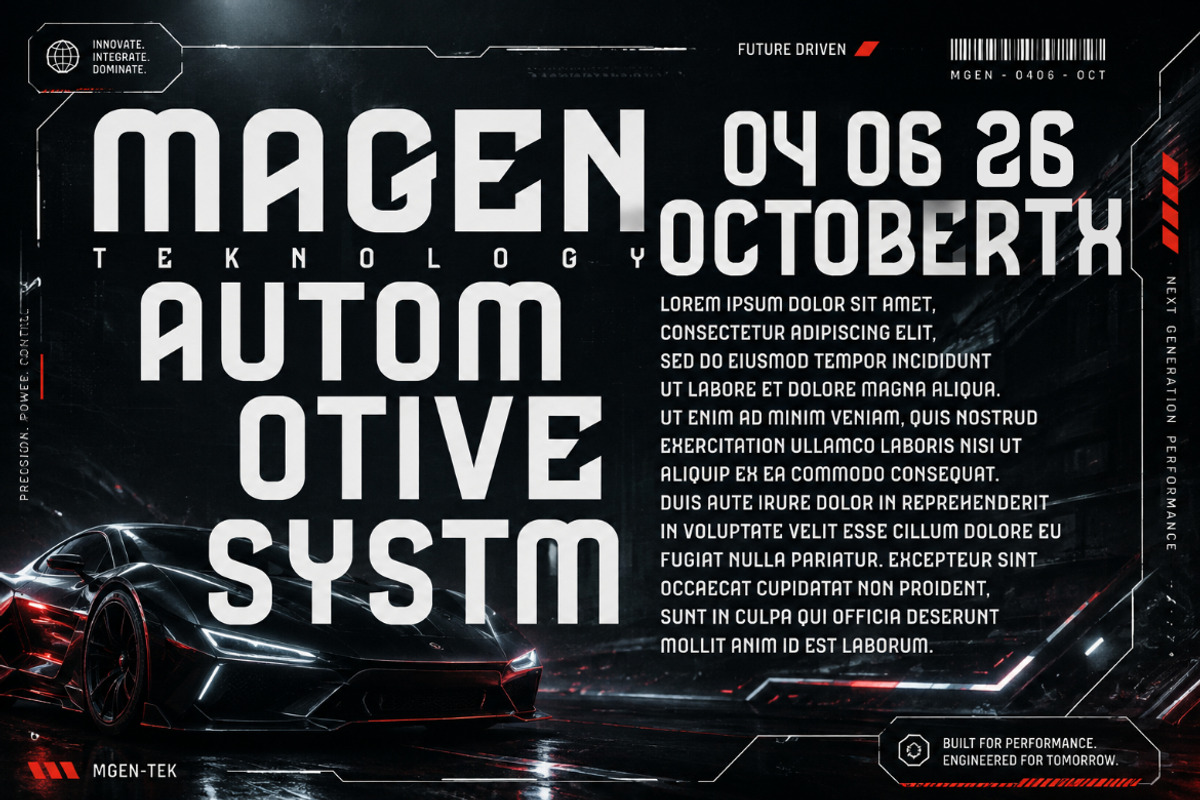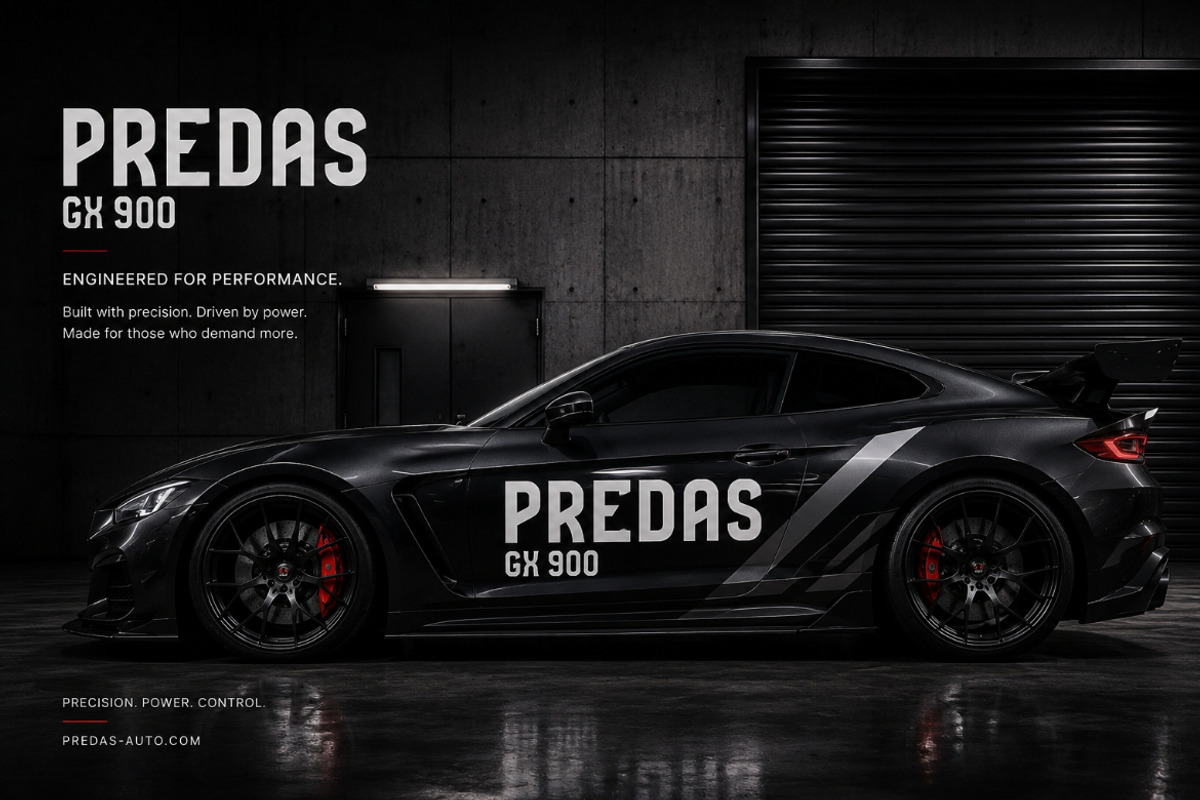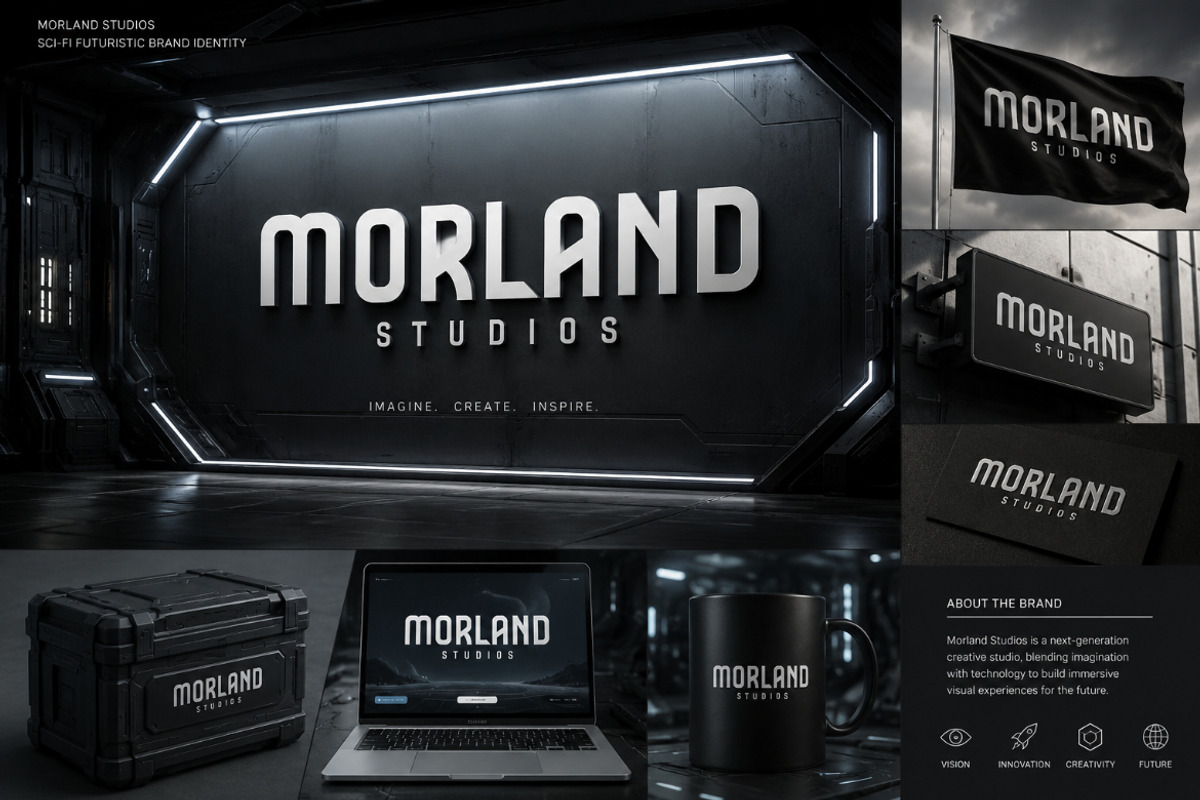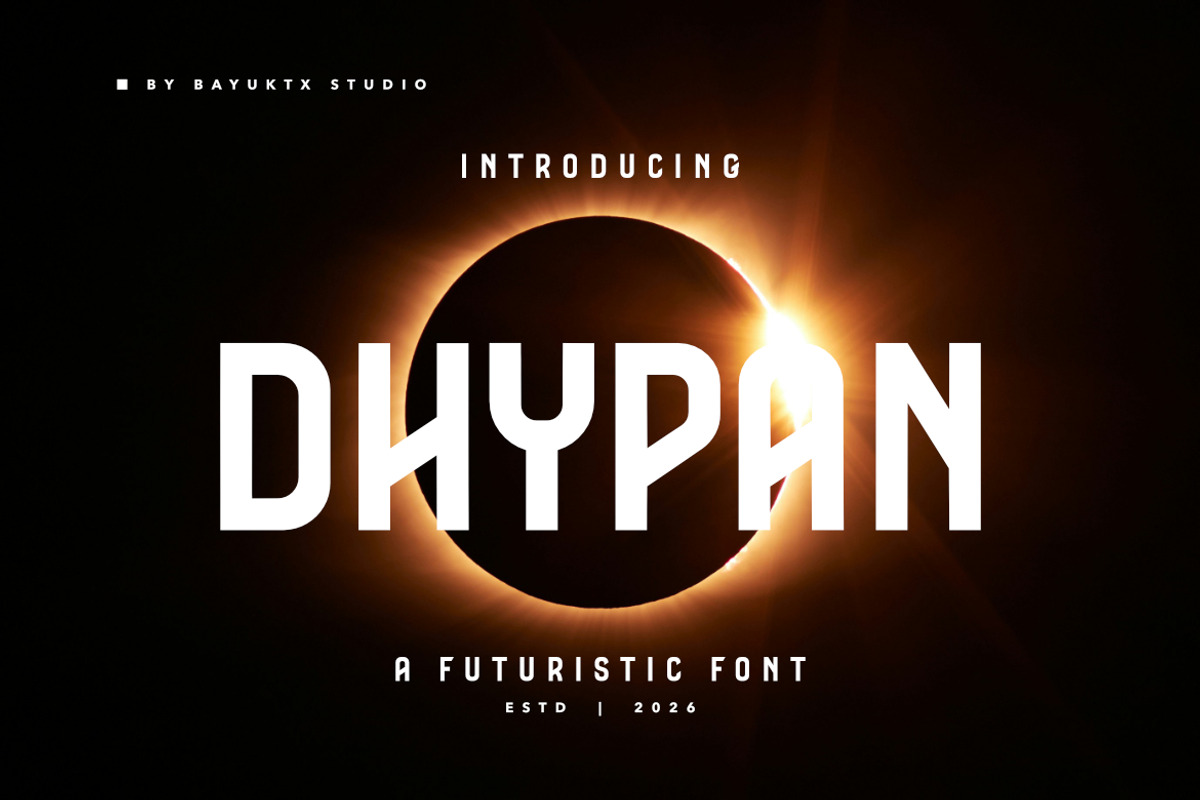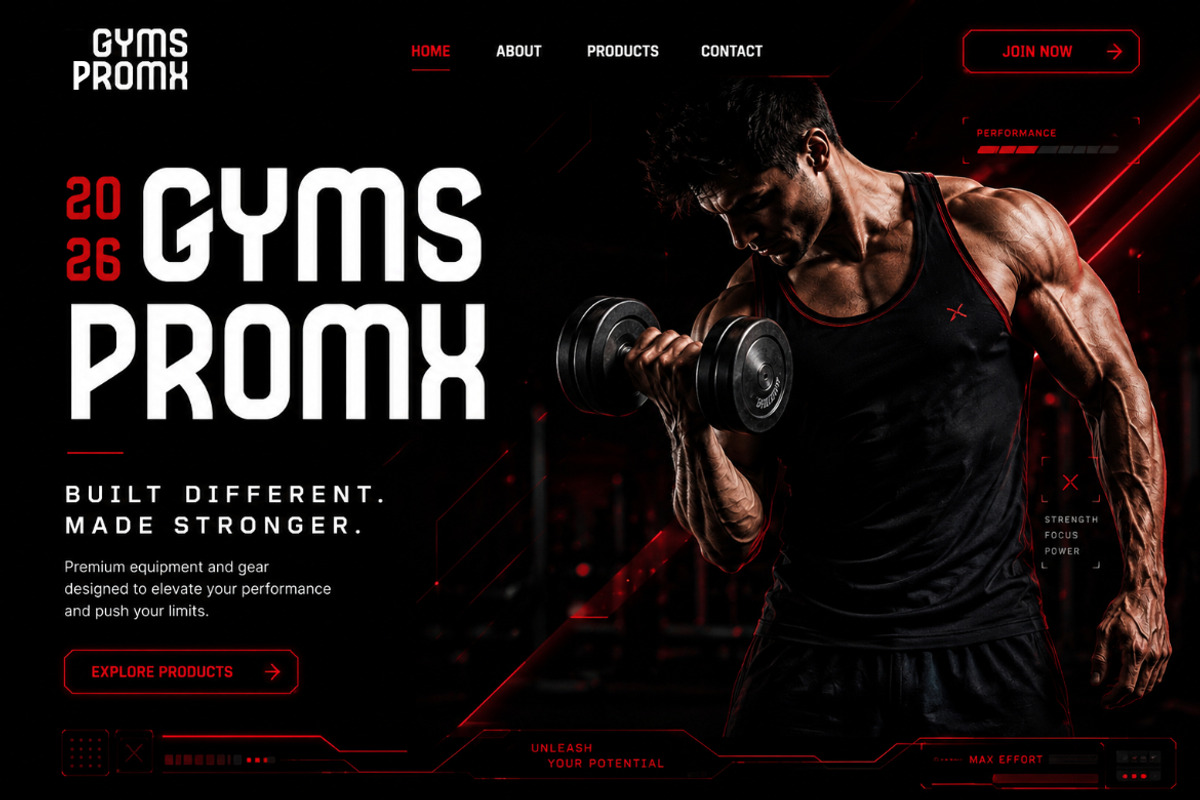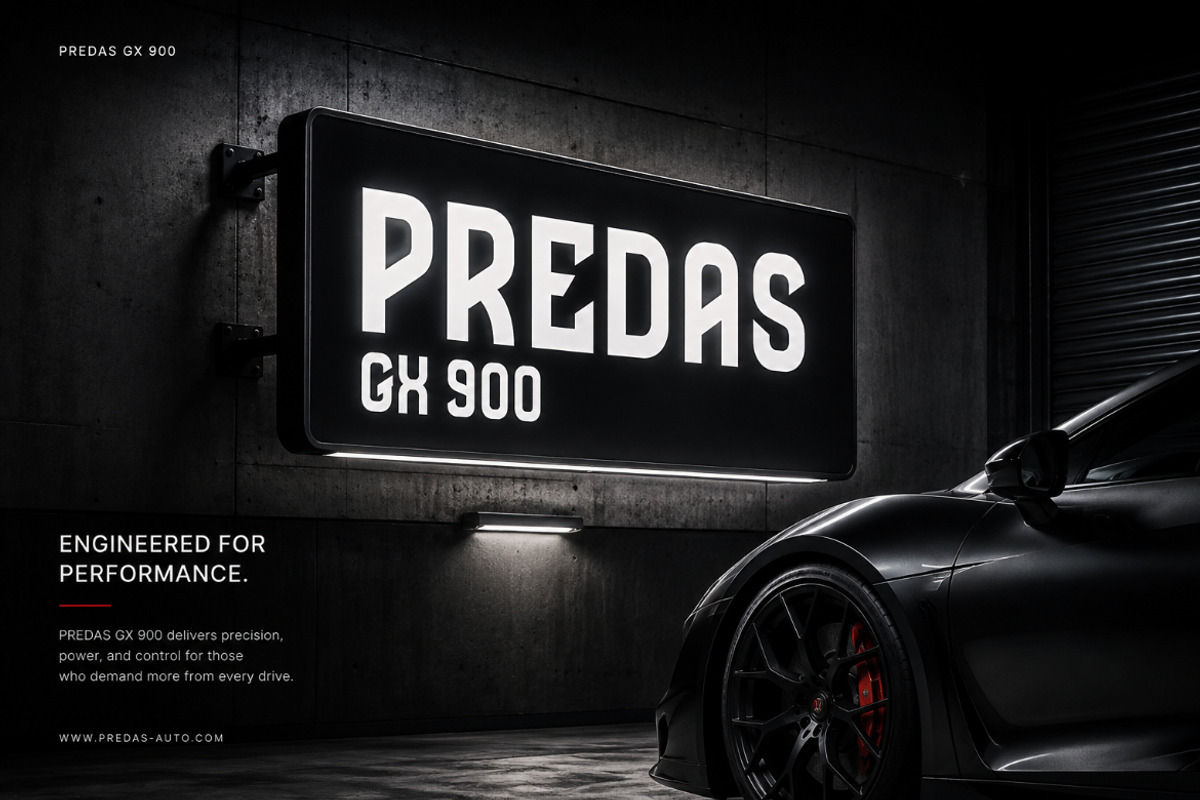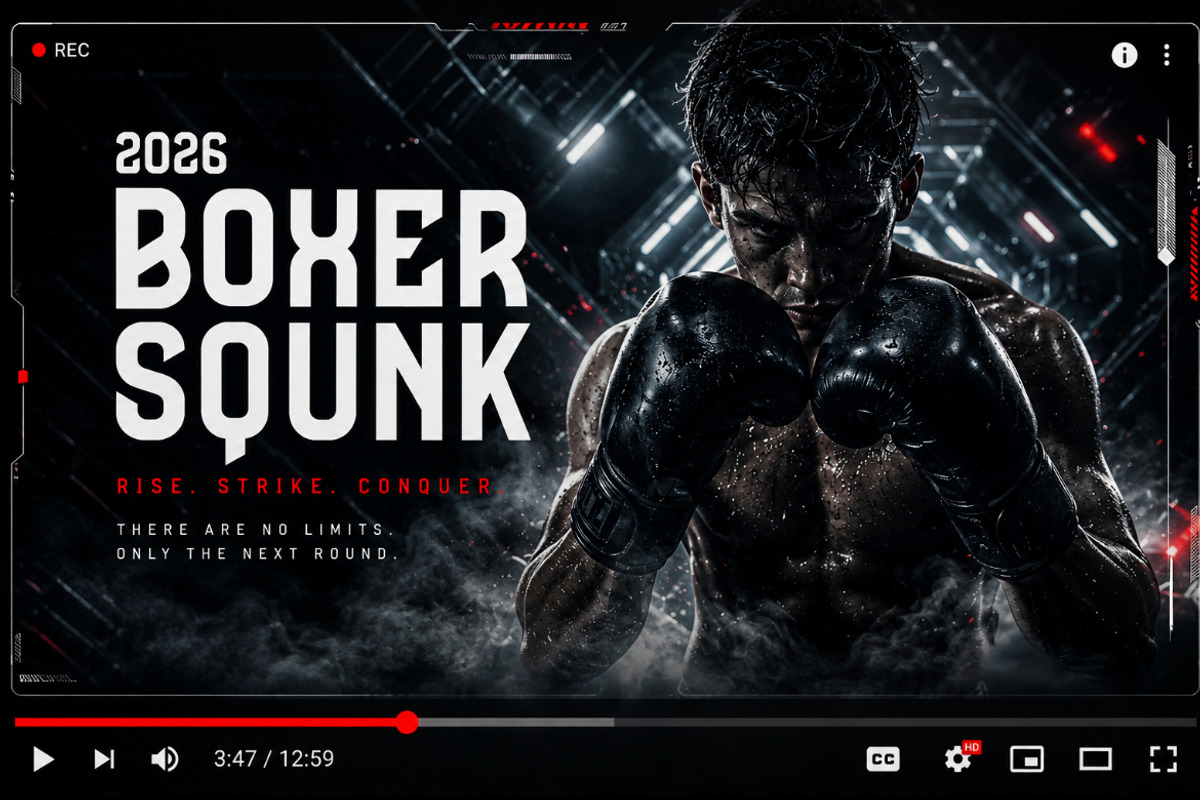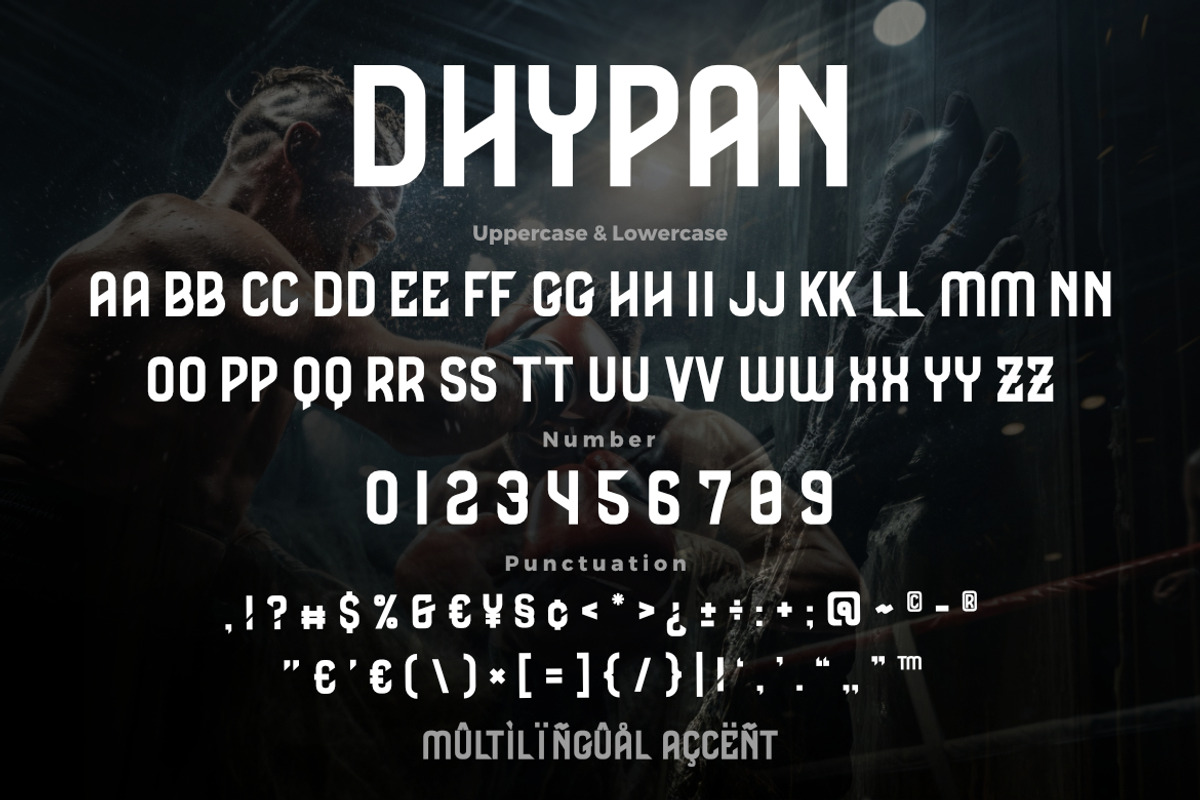
Dhypan a Futuristic Font
Dhypan is a bold Futuristic Display Font featuring strong geometric letterforms, sharp cuts, and a powerful modern structure. Designed with a sleek sci-fi personality, this typeface combines clean construction with distinctive angular details to create a striking and high-impact visual appearance.
Inspired by futuristic technology, space exploration, cyber aesthetics, and modern sports branding, Dhypan delivers a confident and powerful character. Its bold proportions and unique geometric shapes make it ideal for designs that need a strong, modern, and futuristic typographic identity.
With its clean yet aggressive visual style, Dhypan is perfect for futuristic posters, technology branding, sci-fi titles, gaming graphics, sports designs, movie titles, merchandise, album covers, and bold creative projects.
Key Features :
Uppercase & Lowercase Characters
Bold Futuristic Display Style
Geometric Letterforms
Sharp & Angular Details
Modern Sci-Fi Appearance
Strong & Powerful Character
Suitable For :
Futuristic Posters
Sci-Fi Movie Titles
Technology Branding
Gaming Graphics
Esports Designs & Sports Branding
Album & Music Covers
Cyberpunk Artwork
Space-Themed Projects
YouTube & Social Media Graphics
Modern Logos & Branding
Creative Display Projects
With Dhypan a Futuristic Font, every design gains a bold and powerful personality through geometric forms, sharp details, and modern sci-fi-inspired lettering. Perfect for creating unforgettable visuals with a futuristic, technological, and high-impact atmosphere.